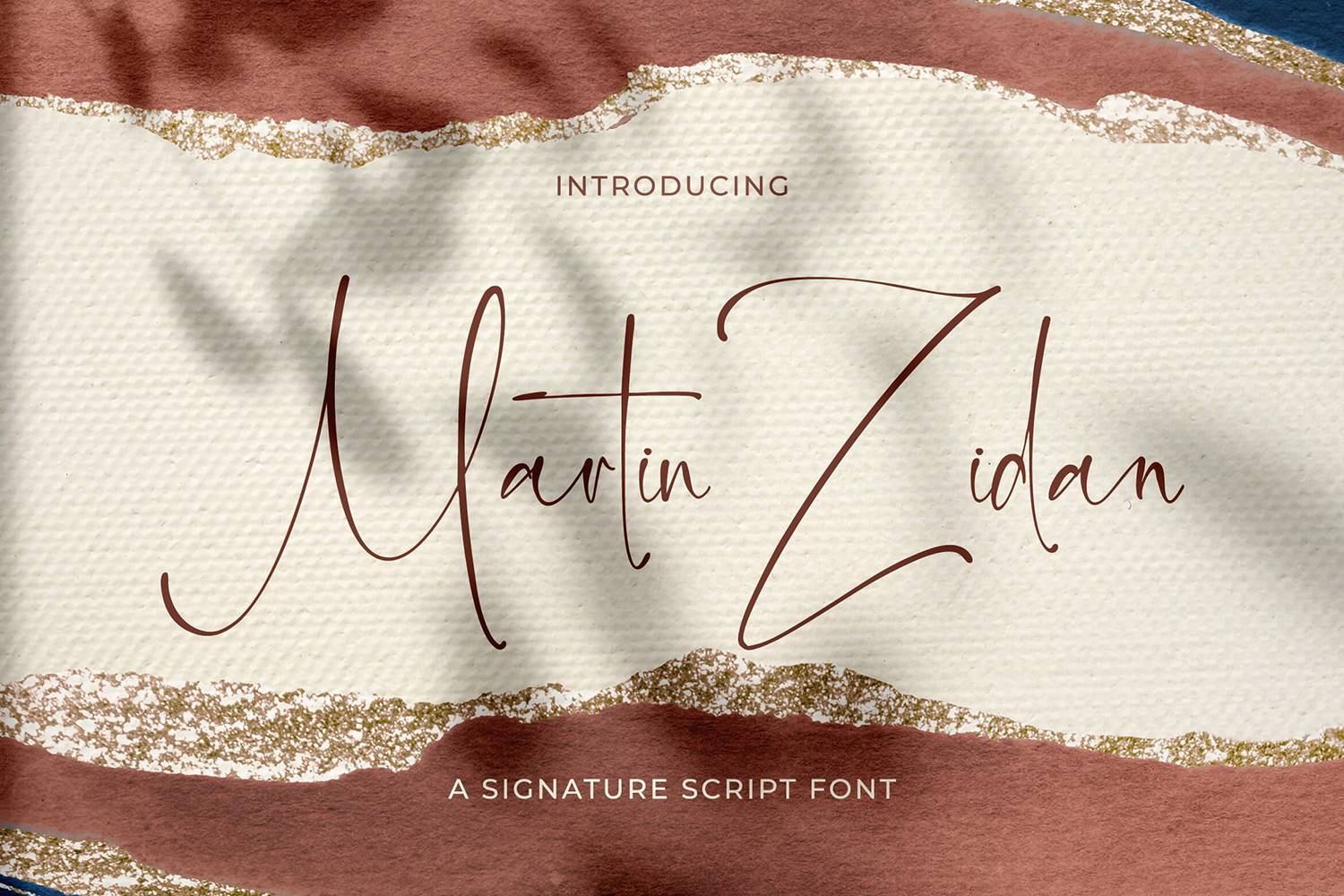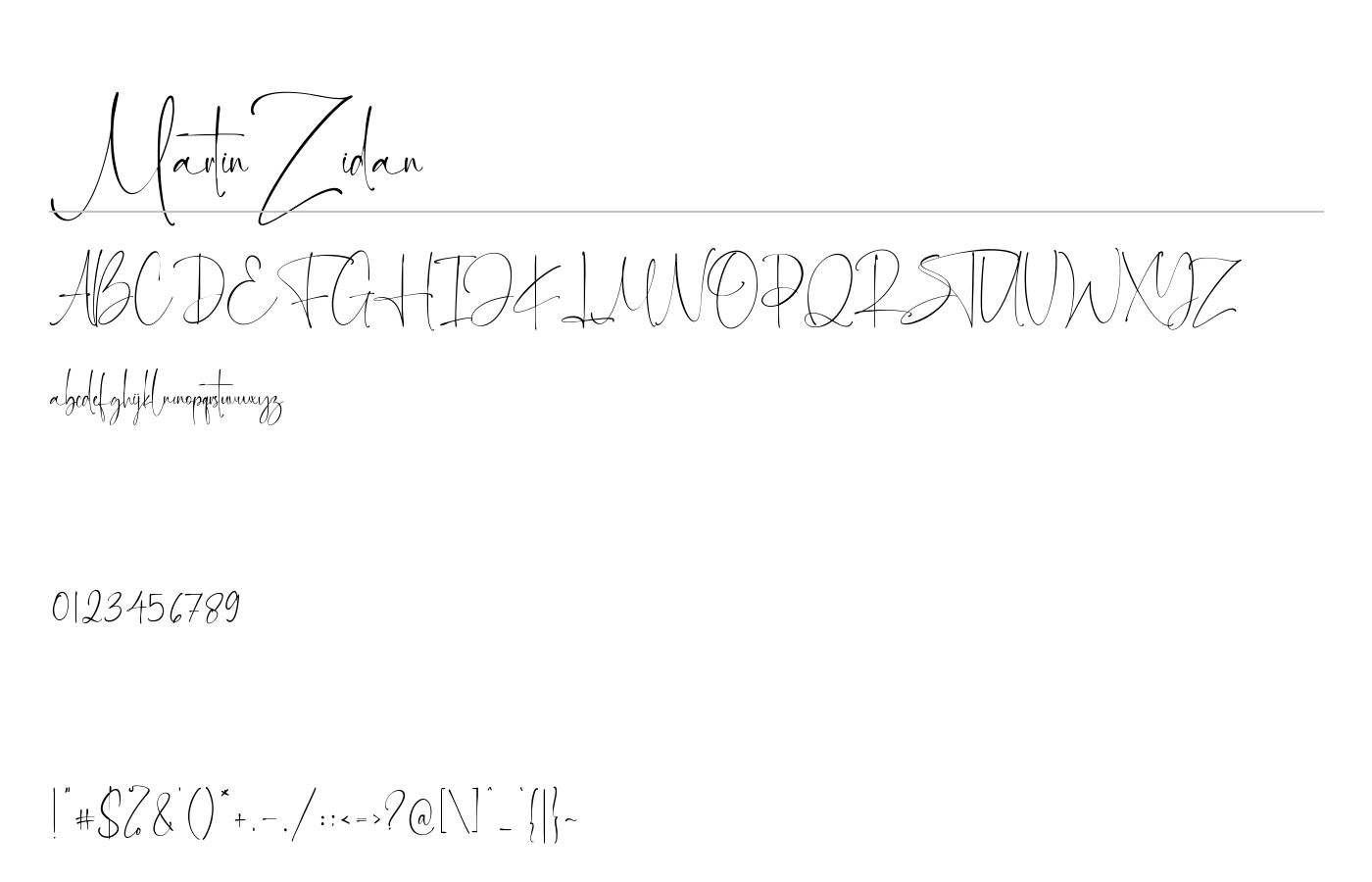
Martin Zidan Font is a delicate and elegant handwritten script with a tall, slender form and fine, flowing strokes. Its whimsical, airy style with irregular lines and graceful curves lends a personal, artistic feel, making it ideal for sophisticated branding, invitations, and creative designs where a touch of charm and uniqueness is desired. This font shines best in large sizes for headlines or logos, adding a refined and distinctive personality to any project.
Martin Zidan Font
About Martin Zidan Font